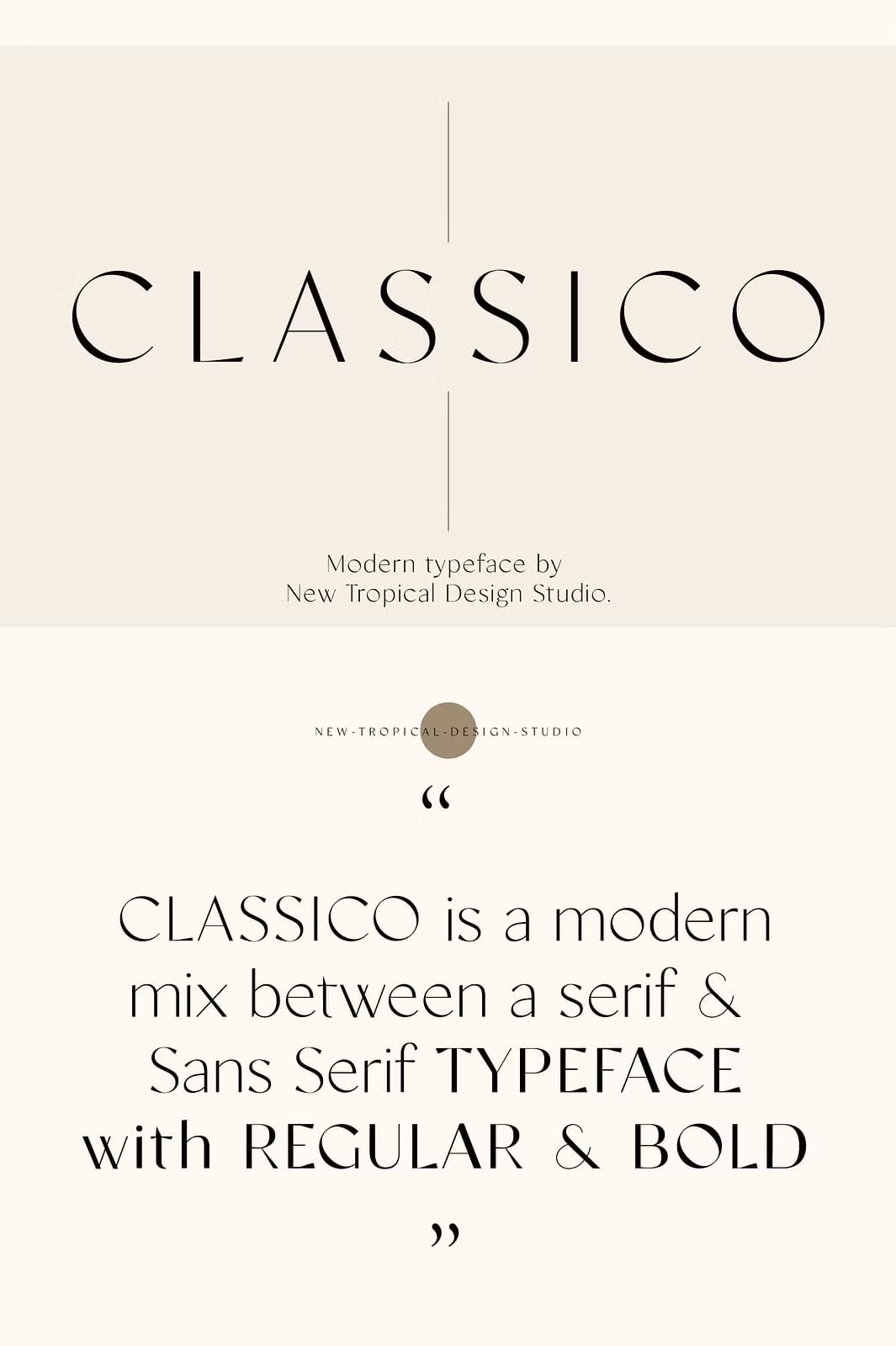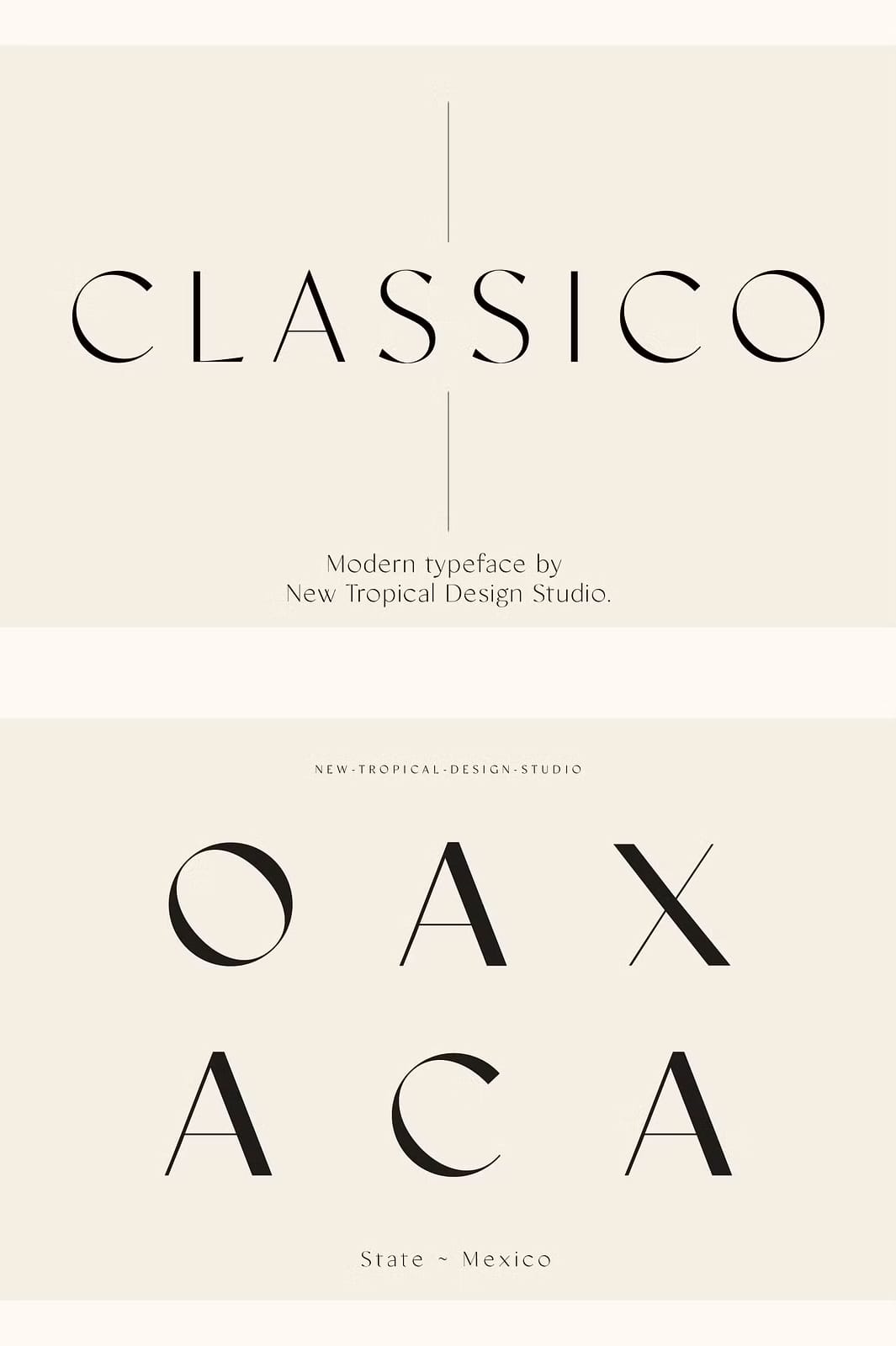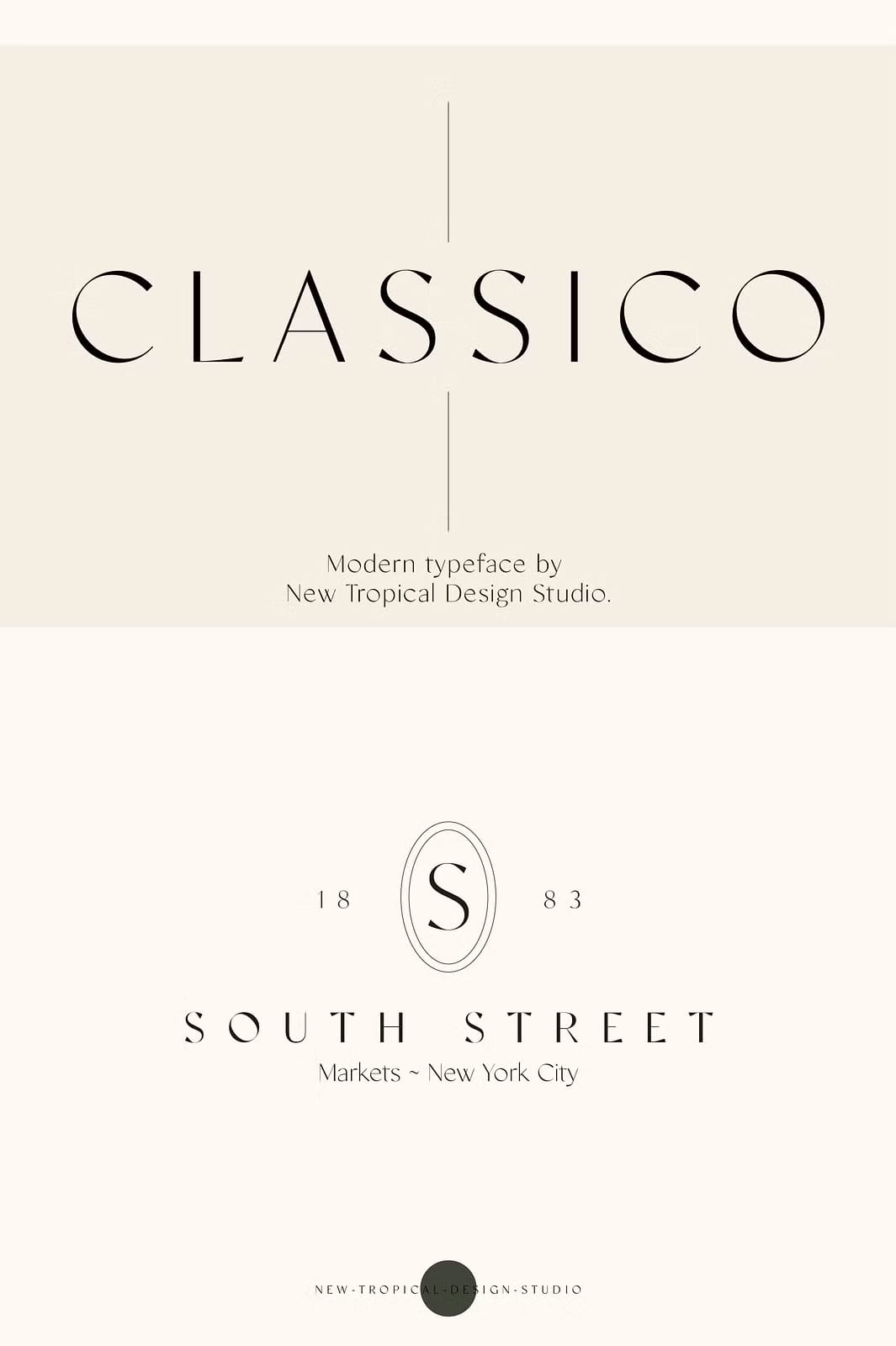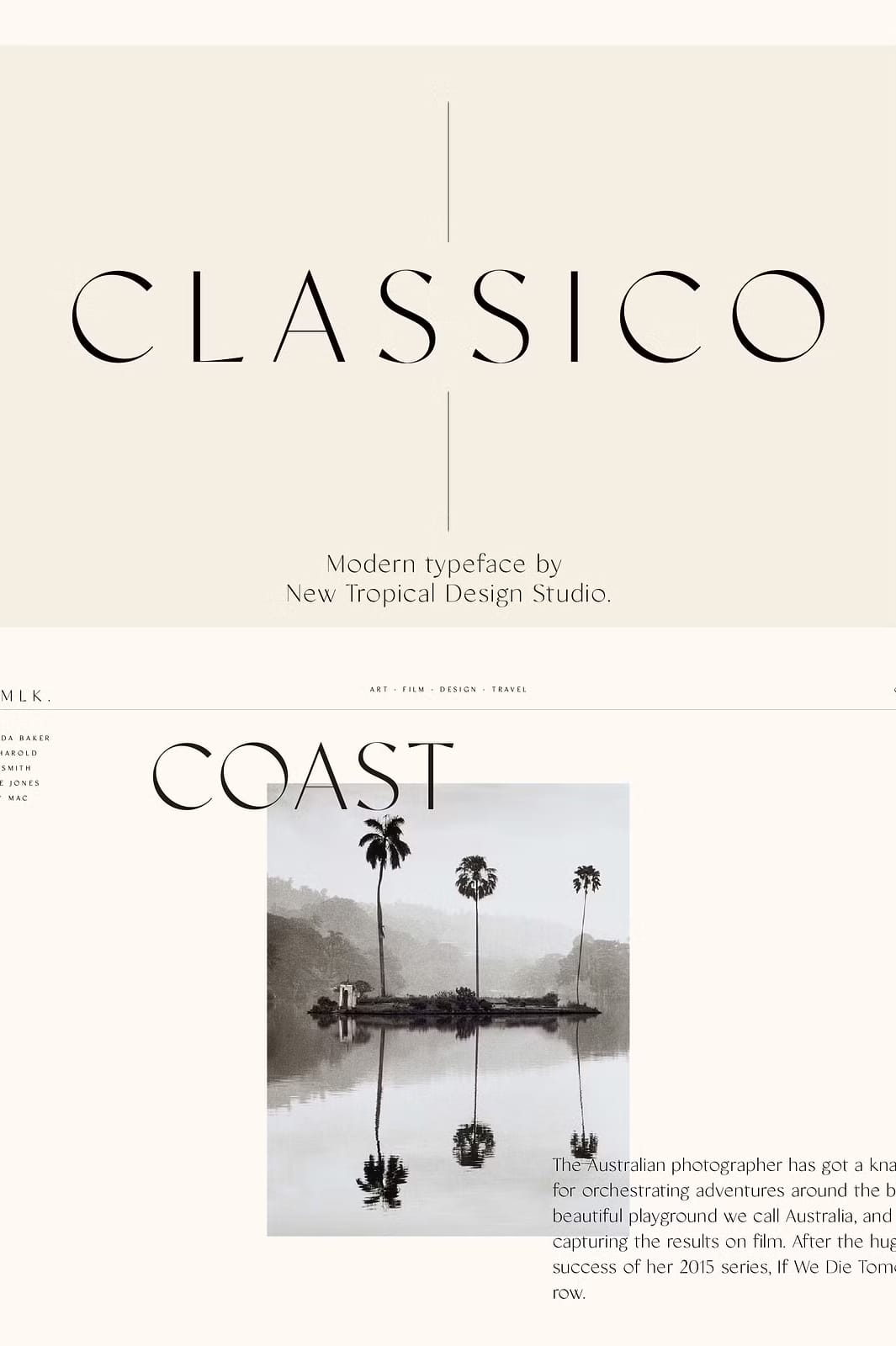
Classico – Serif Font
Classico is a beautifully designed serif font that blends classic elegance with minimalistic appeal. Its light, high contrast strokes make it an ideal choice for crafting feminine logo marks, fashion mastheads, and refined editorial layouts. This font offers versatility for designers seeking a timeless yet modern typography solution.
Complete Font Variations and Language Support
The Classico font family includes both regular and bold versions, providing flexibility for diverse design needs. Whether you require a delicate, understated look or a more impactful and bold impression, Classico delivers consistent quality and readability.
In addition to its attractive style, Classico supports multiple languages. This multilingual capability ensures your typographic projects will retain their elegance and clarity across various linguistic contexts, broadening the font’s usability world-wide.
Essential Typography Elements for Professional Design
This font set includes all the essential typographic elements such as letters, numbers, punctuation marks, and multiple special characters. These comprehensive features allow for precise control over text appearance and facilitate the creation of polished, professional-grade designs.
Why Choose Classico for Your Design Projects?
Classico is perfect for designers who want a clear and stylish font that does not overpower the message. Its minimalistic yet sophisticated traits make it suitable for projects that require a balance of tradition and contemporary style, particularly in fashion and editorial sectors.
The high contrast strokes add a visual intrigue that draws attention without sacrificing legibility. Its elegant simplicity makes Classico a preferred font for feminine branding, logos, and editorial use where aesthetic quality is paramount.